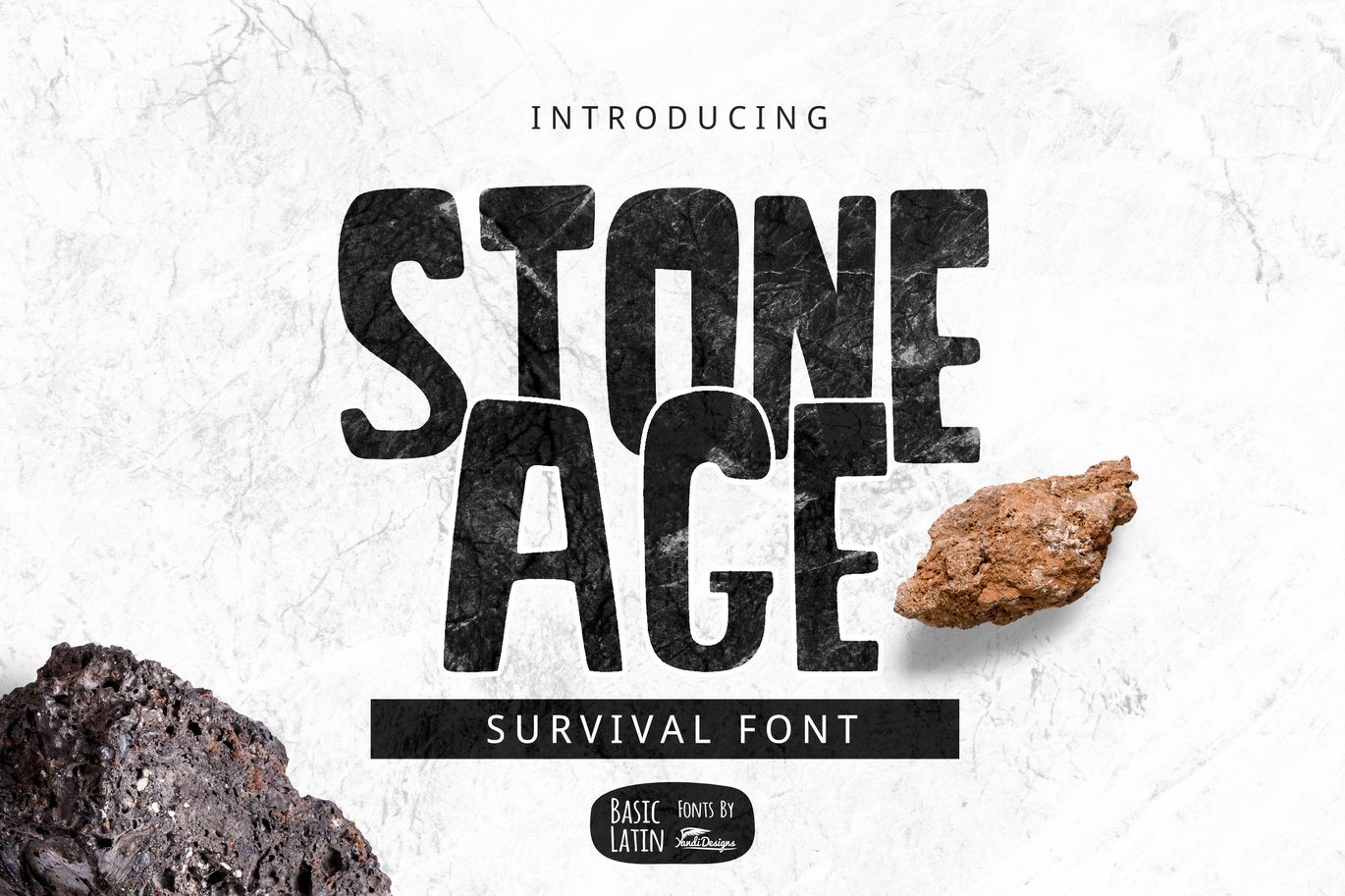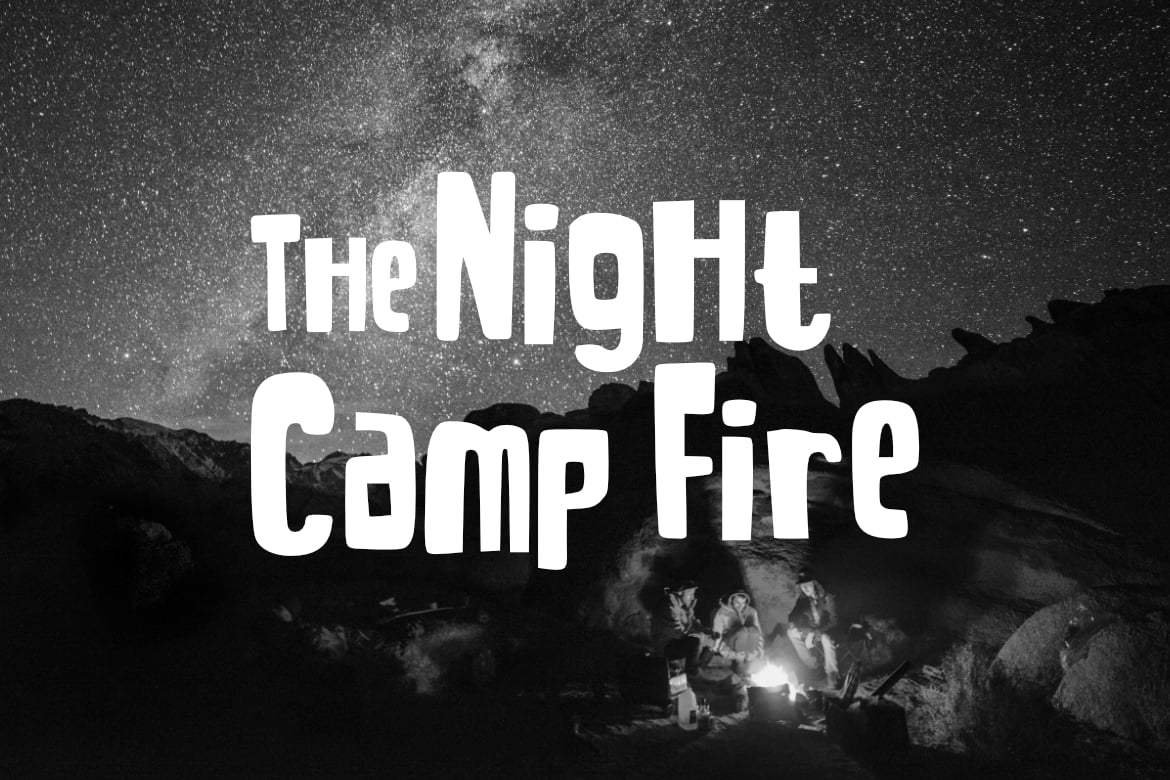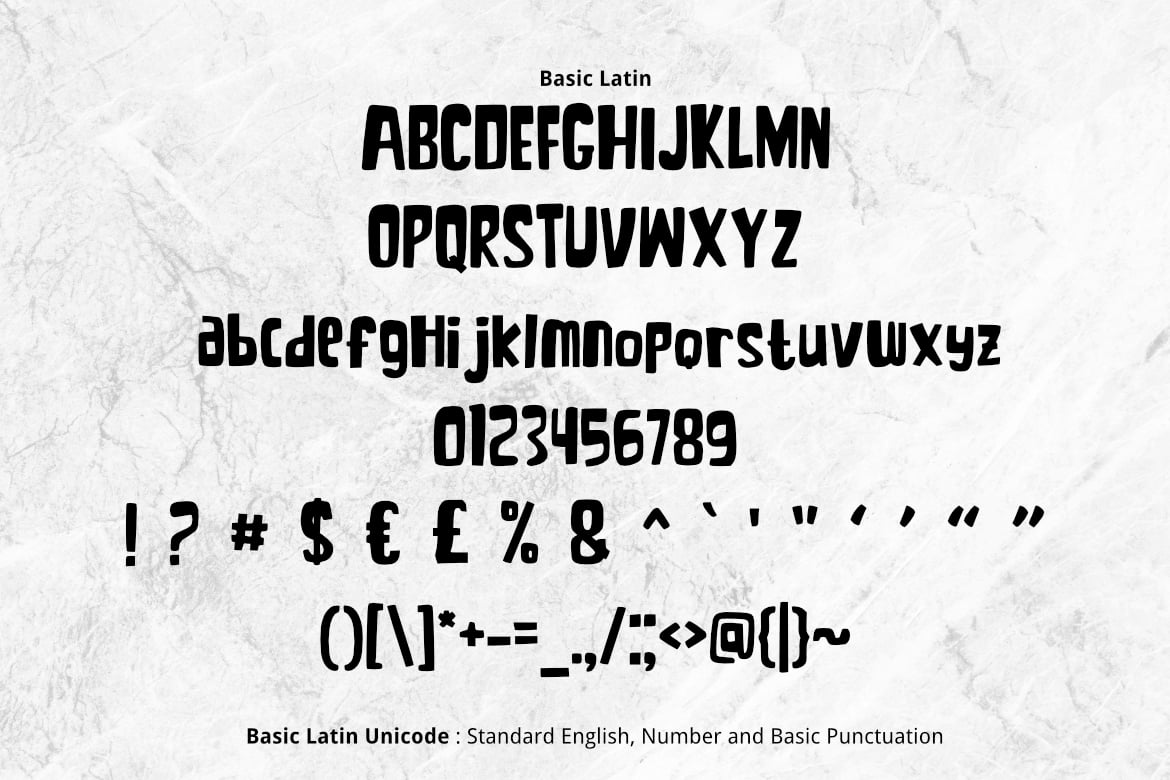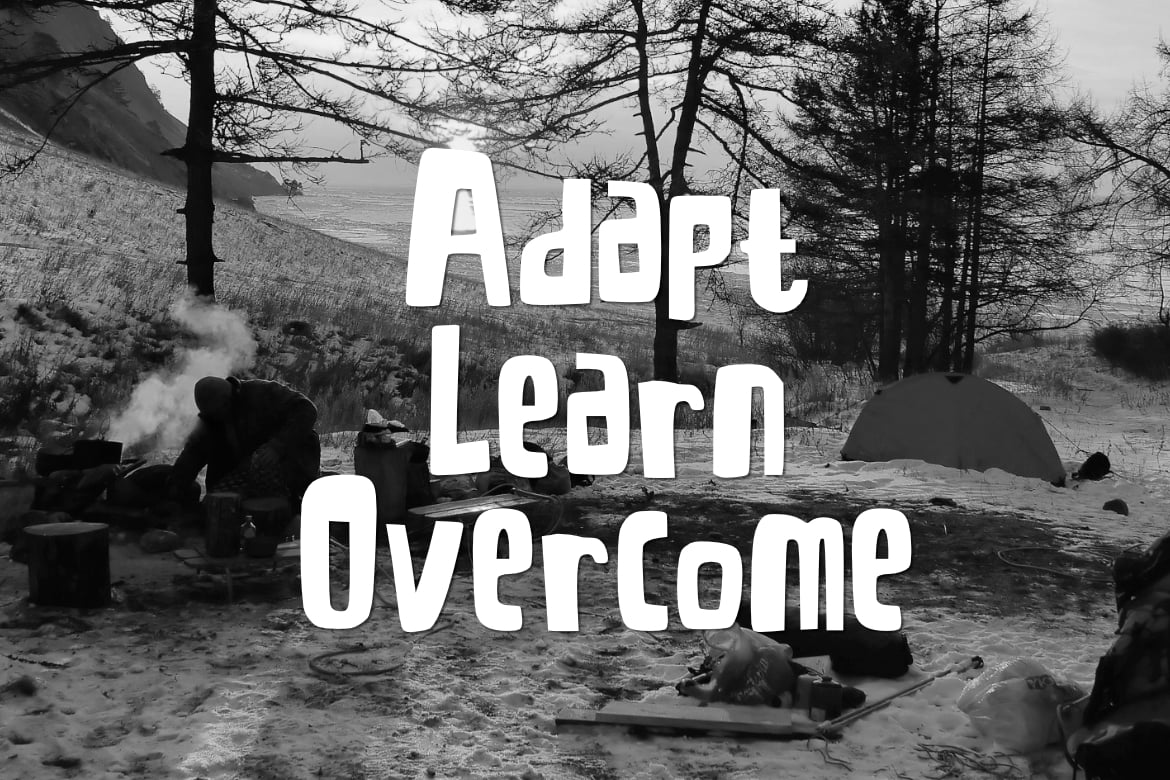
Stone Age Font
Stone Age is bold and playful handwritten font , suitable for many project children book, quotes, logo , heading , title etc. Survival , camping and holiday font.
Basic Latin (Standard English character , number, symbol)